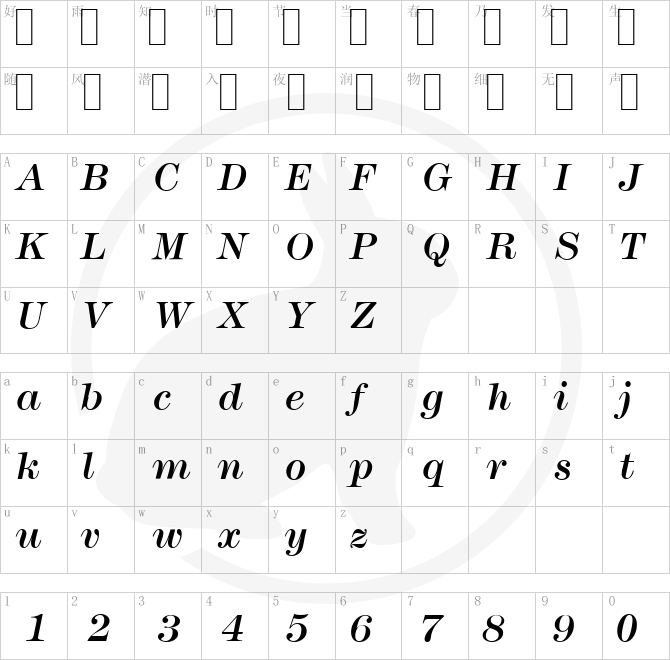
- Font Name:M791-Modern
M791-Modern-Italic.ttf is a very beautiful artistic font, M791-Modern-Italic.ttf is widely used in the design and printing of various books and pictures,M791-Modern-Italic.ttf has a strong visual impact,M791-Modern-Italic.ttf is a commonly used font in newspapers, magazines and books, and is used in posters, e-commerce Poster design, store design, logo design, font design and other fields.M791-Modern-Italic.